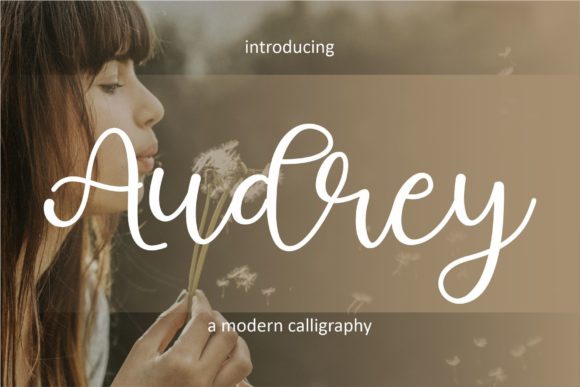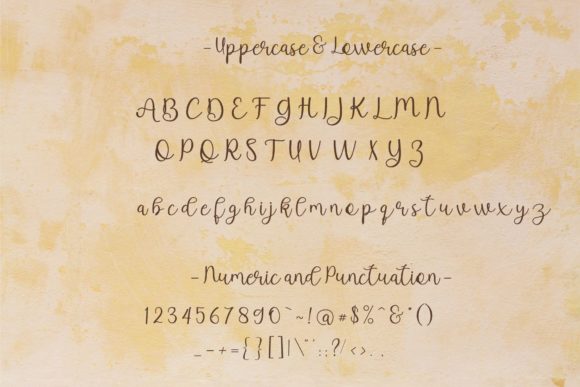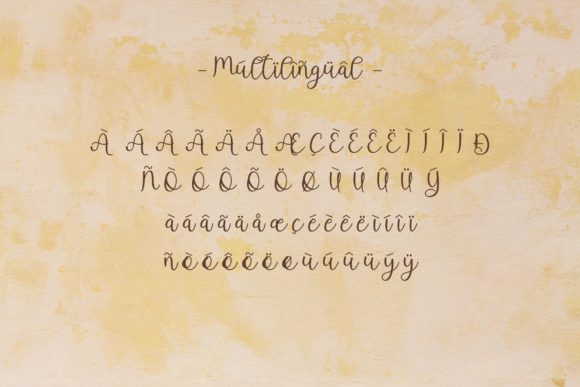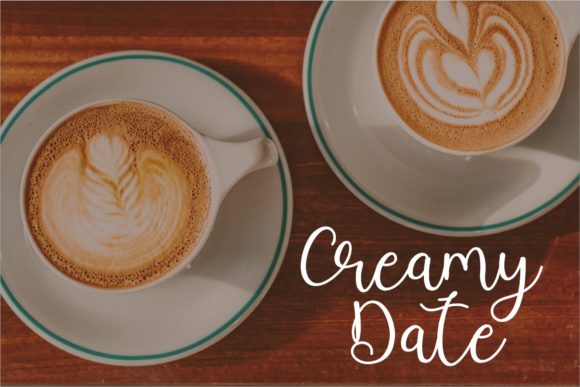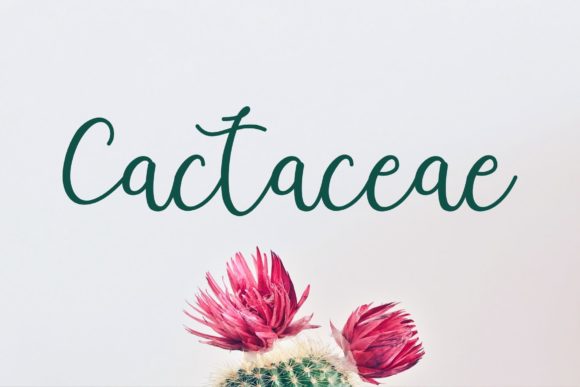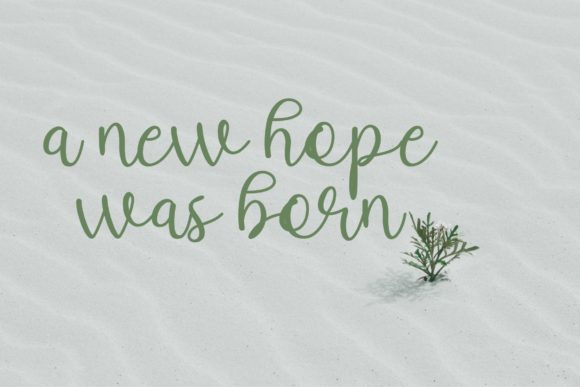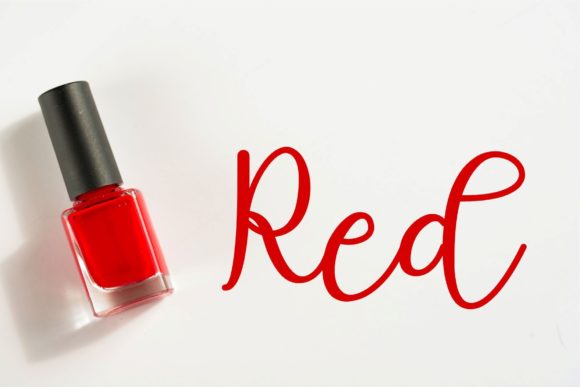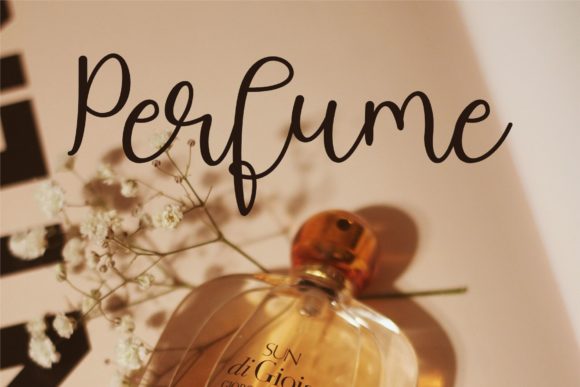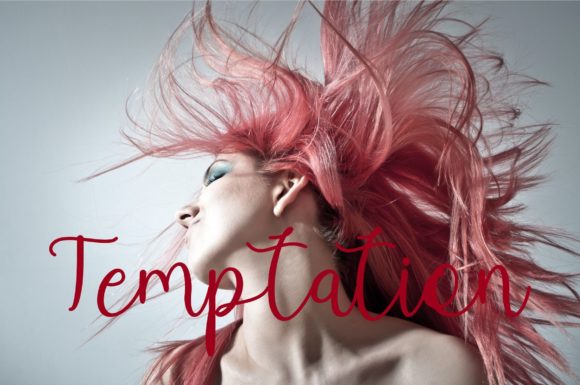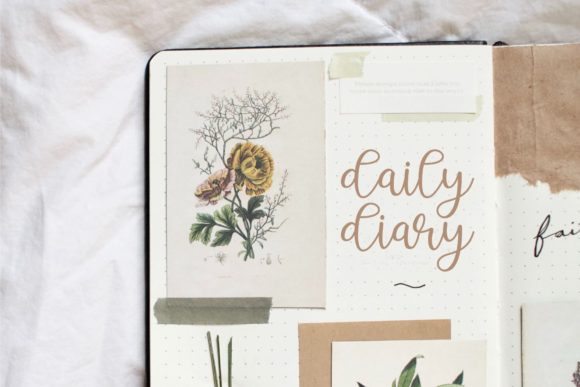
Audrey Font
About Audrey Font
Audrey is an adaptable and trendy script font. No matter the topic, this font will be an incredible asset to your fonts’ library, as it has the potential to elevate any creation.